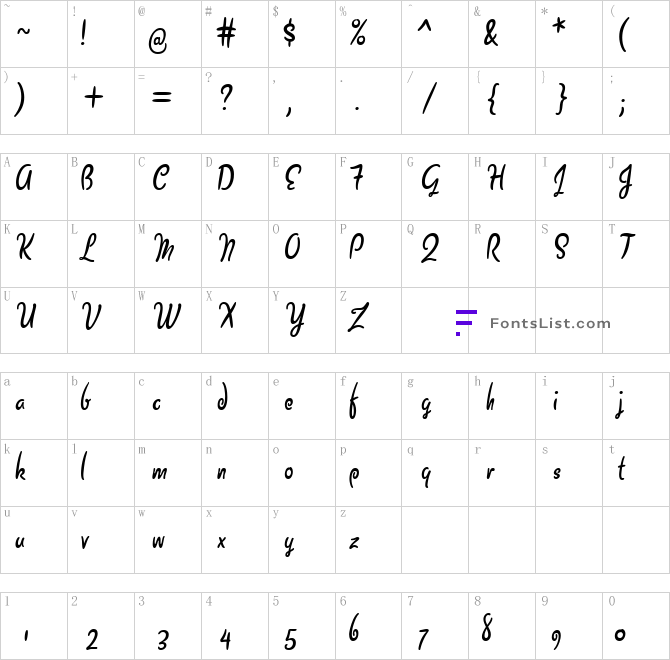
- Font Name:Barrista
Barrista.ttf is a very beautiful artistic font, Barrista.ttf is widely used in the design and printing of various books and pictures,Barrista.ttf has a strong visual impact,Barrista.ttf is a commonly used font in newspapers, magazines and books, and is used in posters, e-commerce Poster design, store design, logo design, font design and other fields.Barrista.